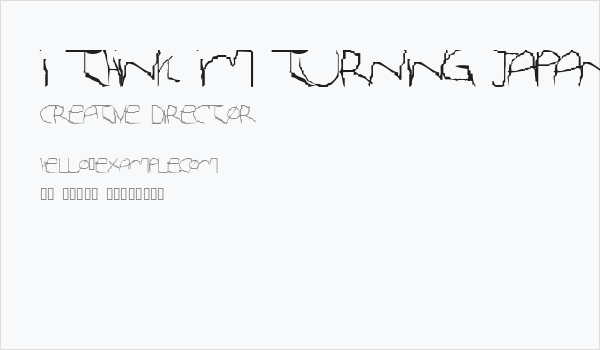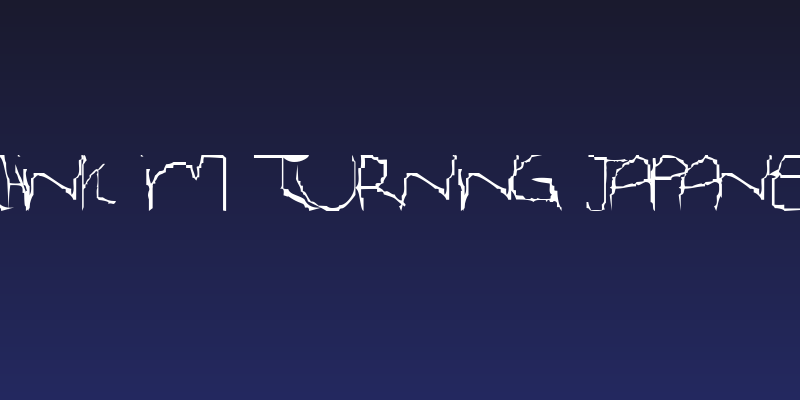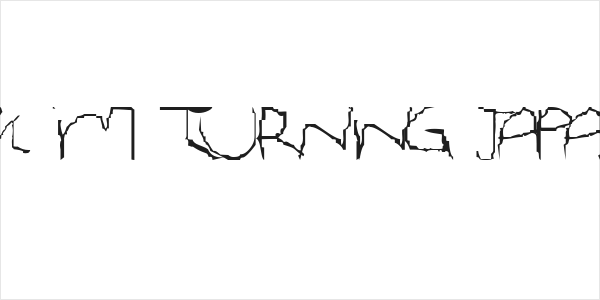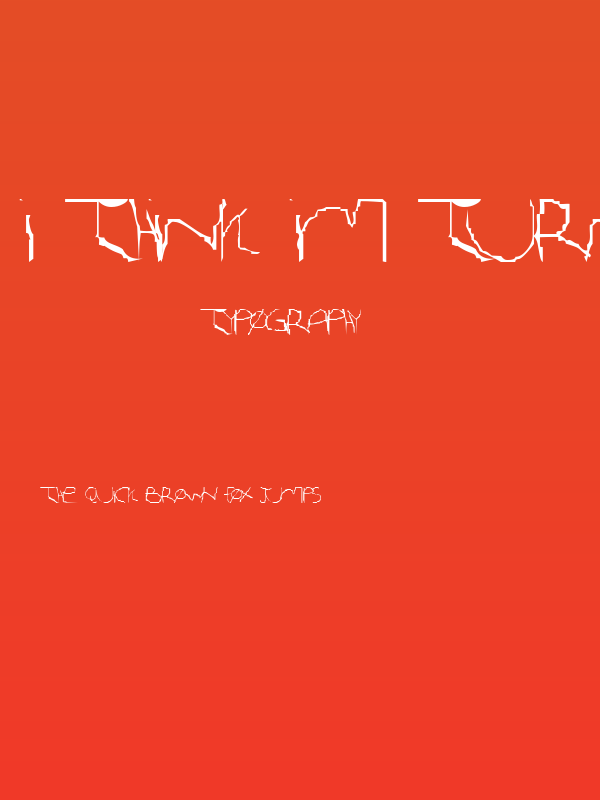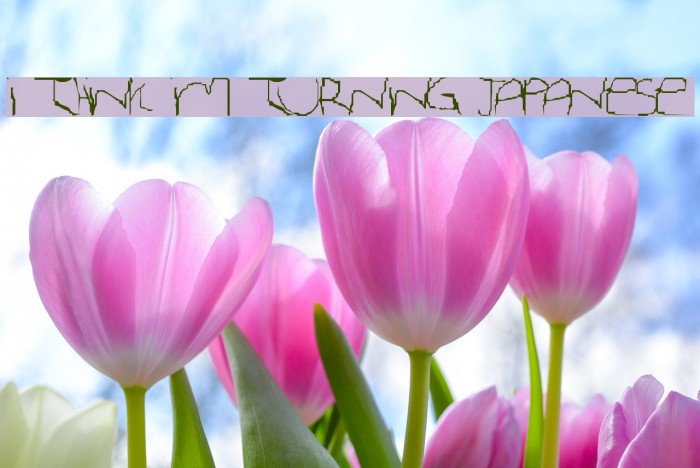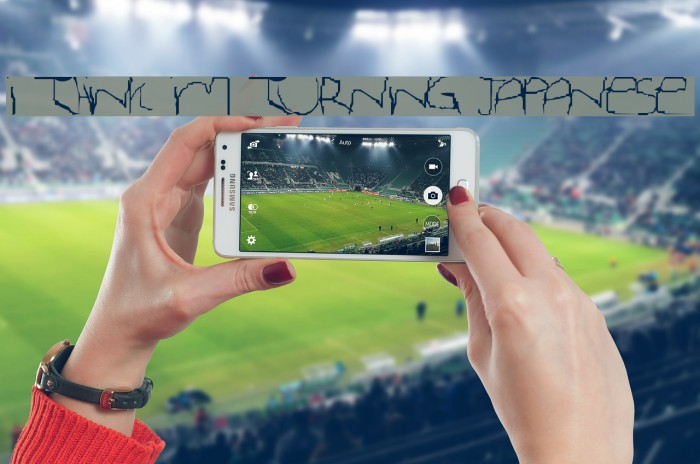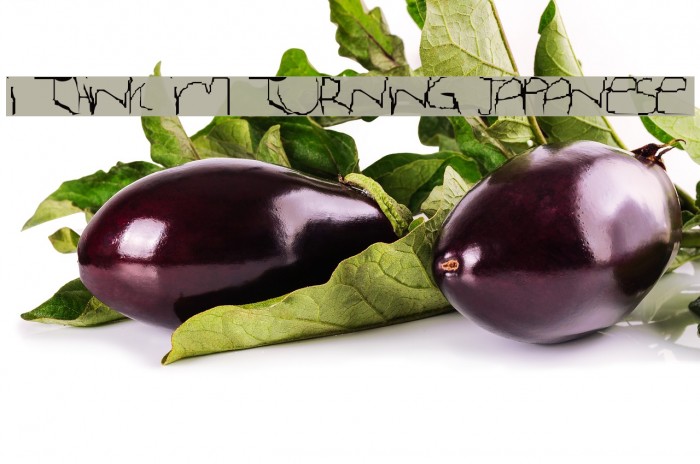
I Think Im Turning Japanese Font
I Think Im Turning Japanese Description
This font features a highly decorative and fragmented style, with each character appearing as if it is cracked or shattered. The design gives an impression of chaos and movement, with irregular edges and a dynamic, broken appearance. The uppercase and lowercase letters maintain this shattered aesthetic, creating a unique visual impact. The numerals and special characters follow the same design principles, ensuring consistency across the character set. This font is not suited for body text due to its complex and intricate design, but it can be highly effective in creating striking headlines or artistic projects.
| Use Case | Headlines, Artistic projects |
| Proposed Projects | Ideal for artistic projects, album covers, posters, or any design requiring a bold, fragmented aesthetic. |